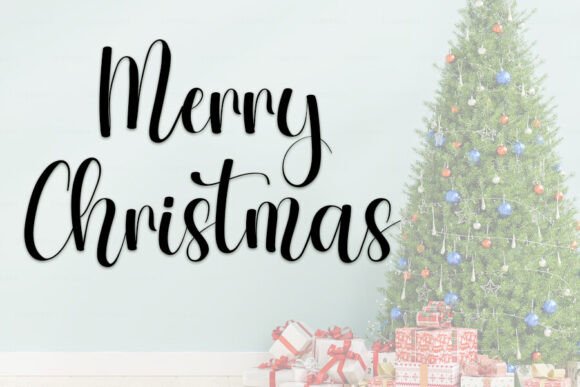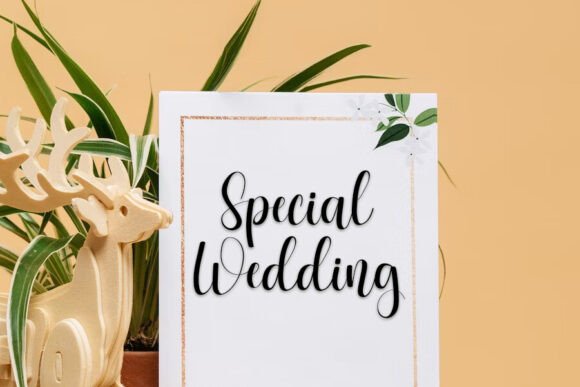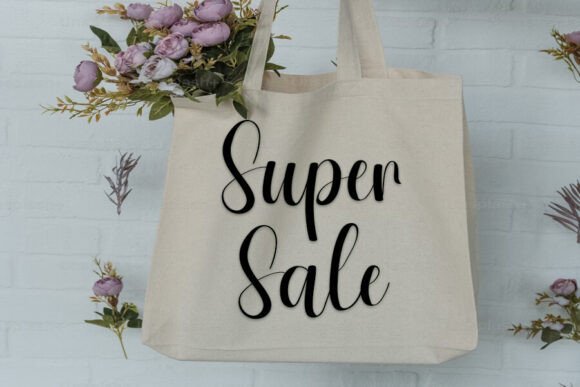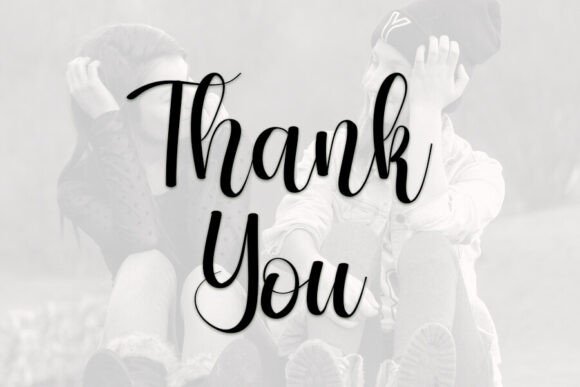
Introducing Bestie Font: Elevate Your Designs with Elegance and Uniqueness
In the world of design, the right font can make all the difference. It’s not just about conveying a message; it’s about doing so with style and impact. This is where Bestie Font comes into play – a stunningly fresh and gorgeous addition to the typography world, designed to elevate your creative projects to new heights. Whether you’re working on YouTube banners, cover logo mockups, elite wedding invitations, stylish ID cards, flyers, or craft projects, Bestie effortlessly enhances a myriad of designs with its appealing simplicity wrapped in uniqueness.
The Versatility of Bestie Font
One of the standout features of Bestie Font is its incredible versatility. It’s a typeface that can adapt to various design needs, making it an ideal choice for designers and crafters alike. Here are some of the areas where Bestie shines:
- YouTube Banners and Cover Logo Mockups: In the digital age, YouTube has become a crucial platform for content creators. Bestie Font can help you create eye-catching banners and logo mockups that capture the essence of your channel, making it more attractive to potential subscribers.
- Elite Wedding Invitations: For those special moments, Bestie offers an elegant and sophisticated touch to wedding invitations. Its unique yet simple design ensures that your invitation stands out, setting the tone for an unforgettable event.
- Stylish ID Cards: Whether for corporate events, conferences, or membership cards, Bestie adds a touch of professionalism and style to ID cards, making them more than just identification tools.
- Flyers and Craft Projects: Bestie’s simplicity and uniqueness make it an excellent choice for flyers and various craft projects. It can help convey your message effectively while making your project visually appealing.
Why Choose Bestie for Corporate Branding?
Utilizing Bestie on your corporate branding is more than just a design choice; it’s a strategic move towards progress and development. In today’s competitive market, standing out is crucial, and the right typography can significantly influence how your brand is perceived. Here’s why Bestie is a game-changer for corporate branding:
- Aesthetic Appeal: Bestie’s subtle yet striking design adds an aesthetic appeal to your brand’s visual identity, making it more engaging to your audience.
- Uniqueness: In a sea of generic fonts, Bestie offers a breath of fresh air. Its uniqueness ensures that your brand’s message is delivered with a distinct voice.
- Versatility: Bestie can be used across various platforms and materials, from digital content to print media, ensuring consistency in your brand’s visual identity.
Bestie – More Than Just a Typeface
Bestie Font is not just another typeface; it’s a design tool that empowers you to create with elegance and impact. Its design is centered around the idea of providing a secret tool for design prowess. Whether you’re a professional designer or a crafter, Bestie offers the flexibility and style needed to bring your visions to life.
In conclusion, Bestie Font is a remarkable addition to any designer’s or crafter’s toolkit. Its versatility, elegance, and uniqueness make it an ideal choice for a wide range of projects, from digital content creation to traditional crafting. By incorporating Bestie into your designs, you’re not just choosing a font; you’re elevating the aesthetic of your projects and paving the way for progress and development. Discover the potential of Bestie Font today and take your designs to new heights of creativity and sophistication.